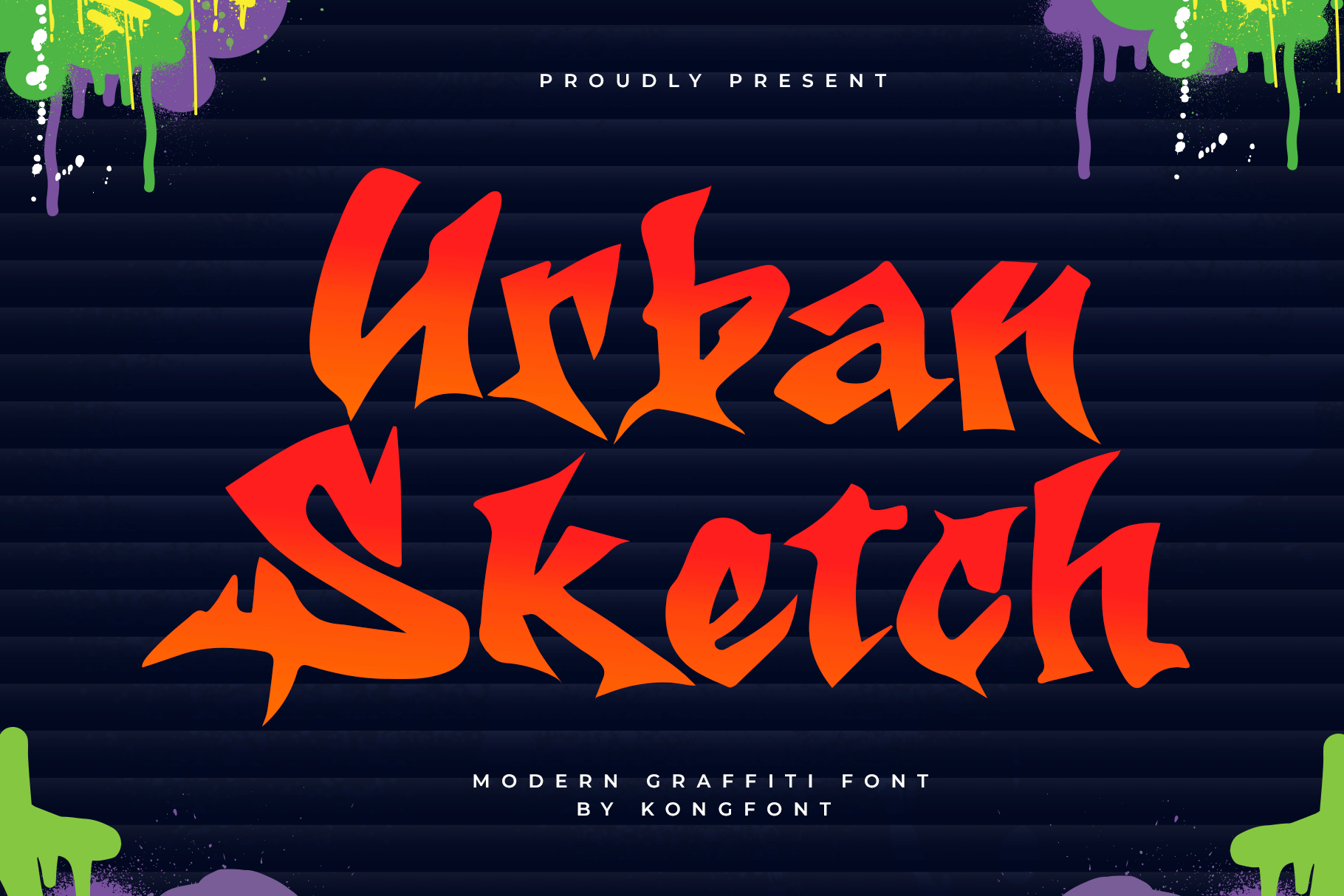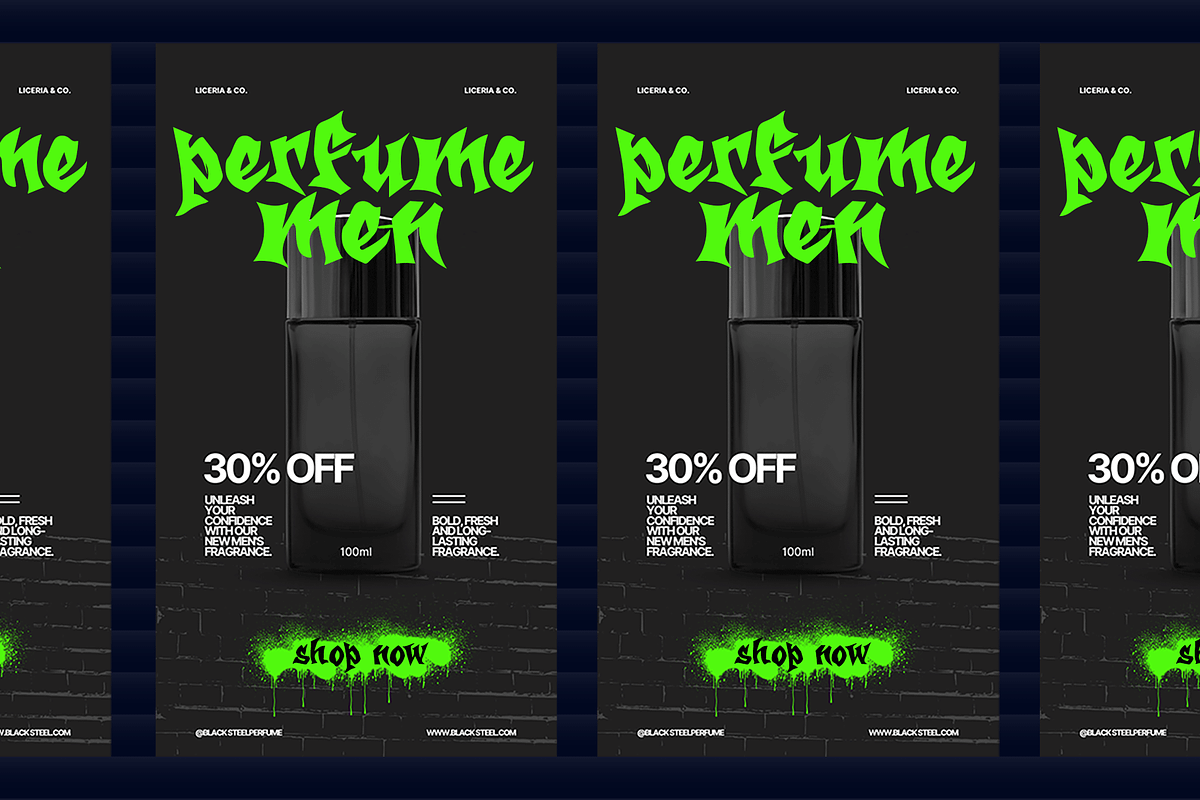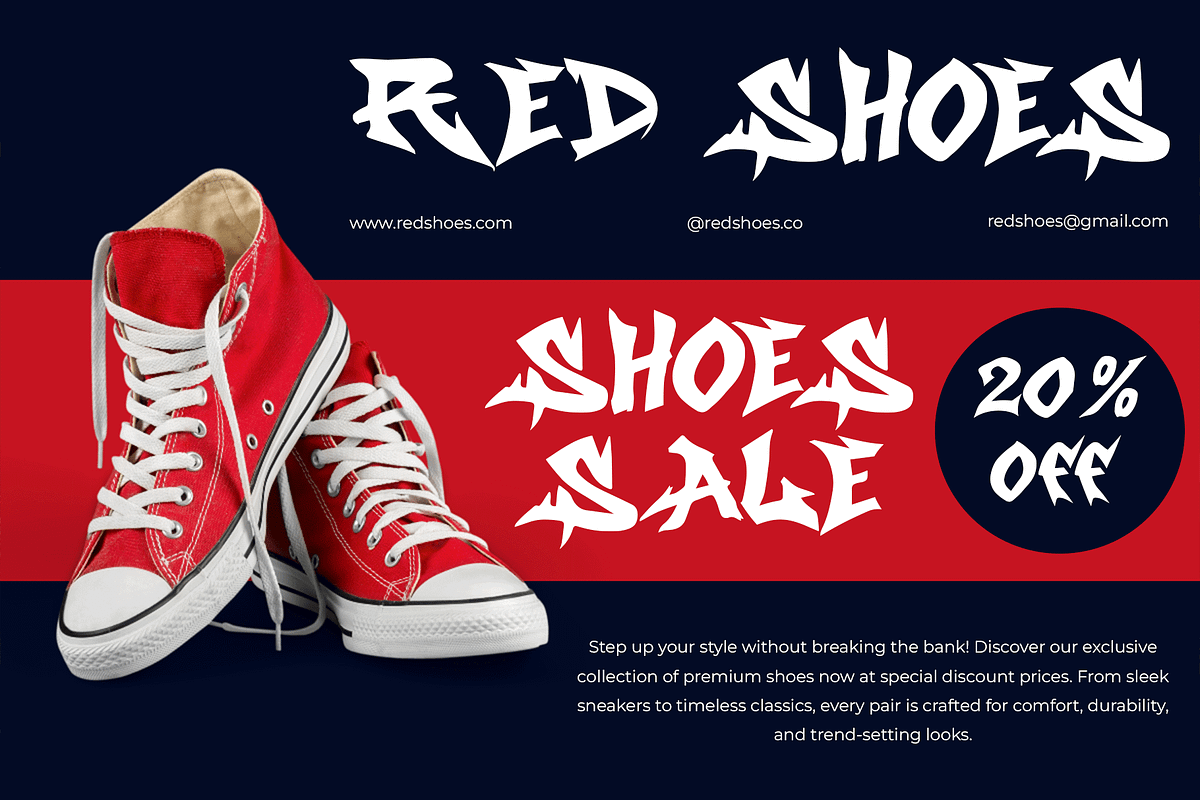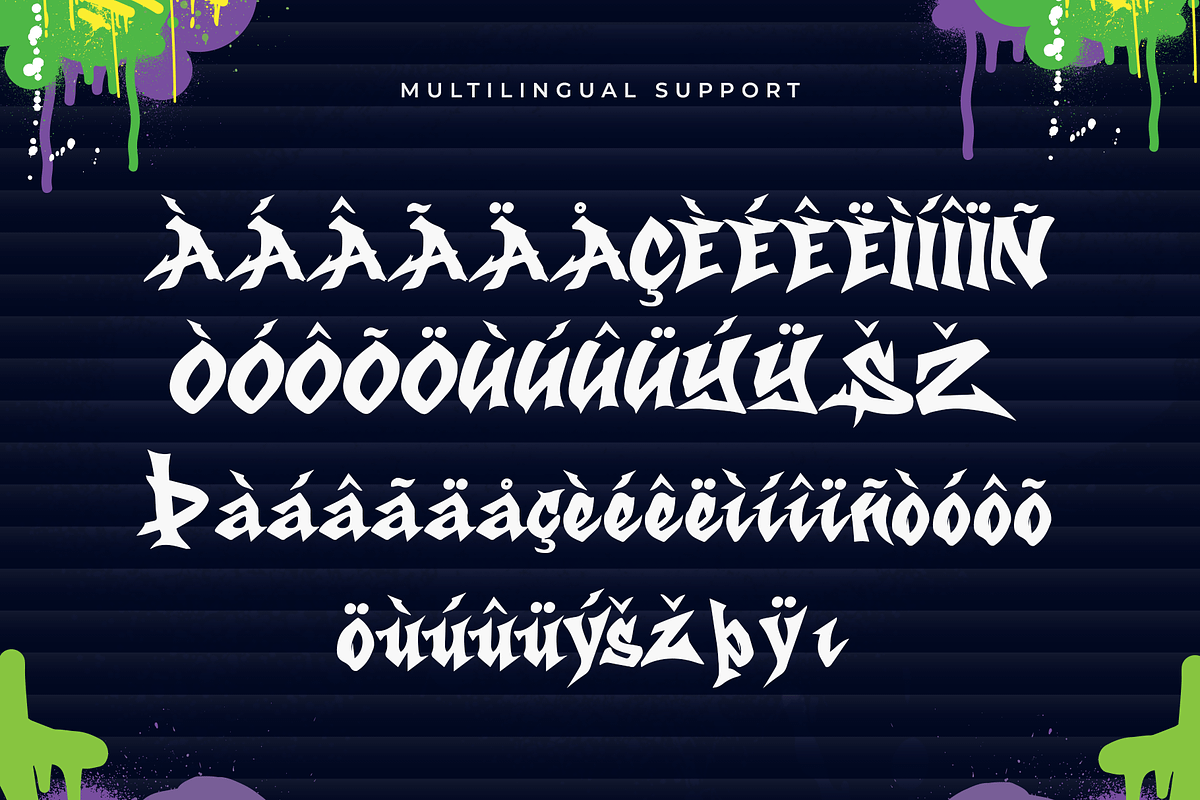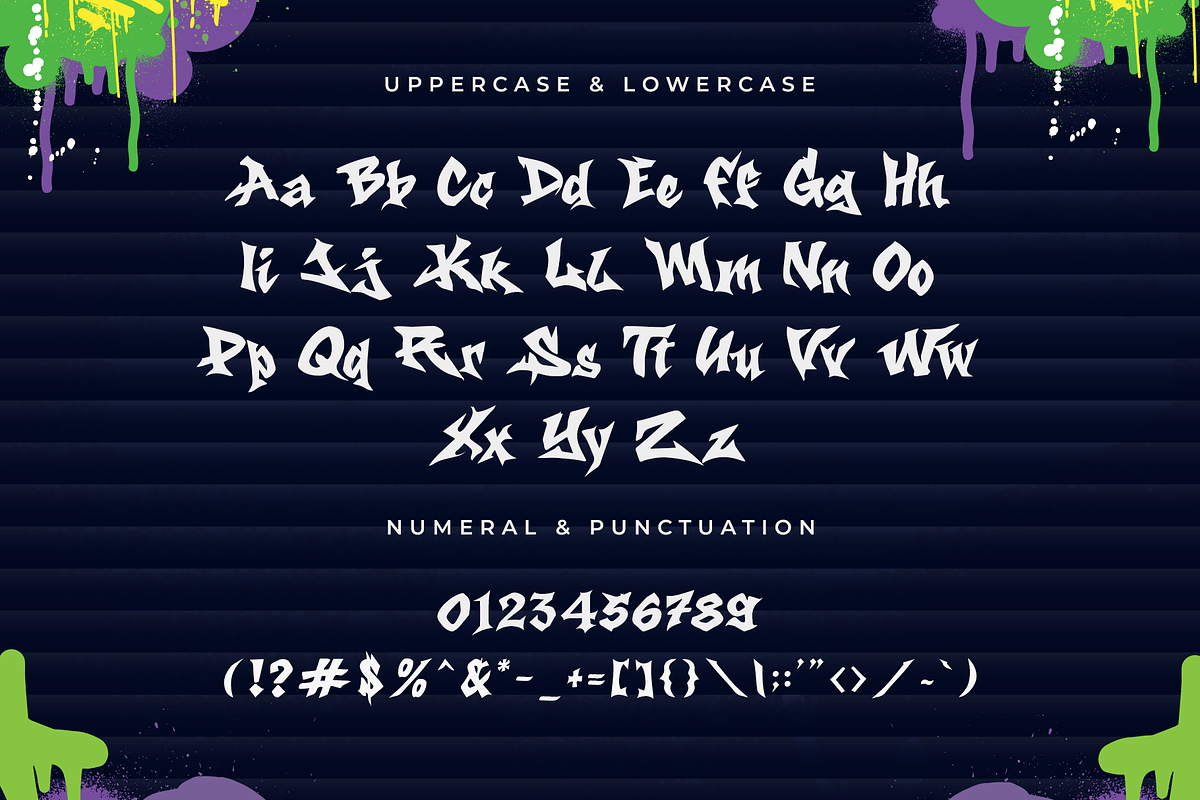
Urban Sketch – Modern Graffiti Font
Urban Sketch is a modern graffiti font that captures the raw energy and creativity of street art. With its hand-drawn strokes and edgy character design, this typeface brings an authentic urban vibe to any project.
Perfect for posters, album covers, streetwear branding, social media graphics, event flyers, and digital art, Urban Sketch gives your designs a bold, rebellious edge. Its sketch-style details and expressive lettering make it ideal for projects that need personality and attitude.
The font includes uppercase, lowercase, numbers, punctuation, and multilingual support, giving you full flexibility for both digital and print use.